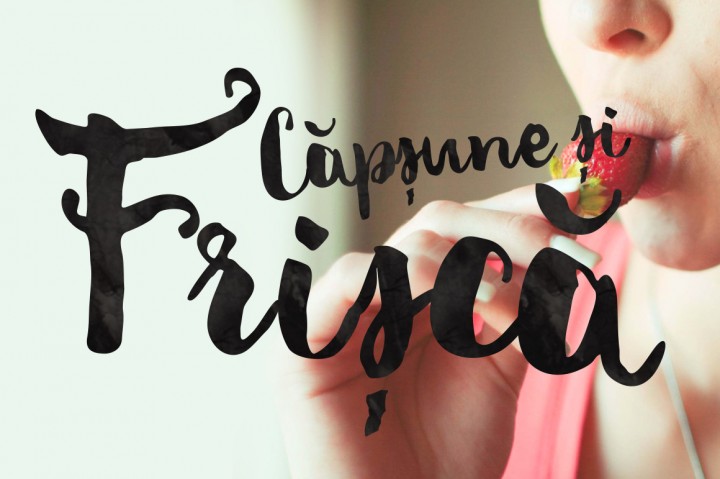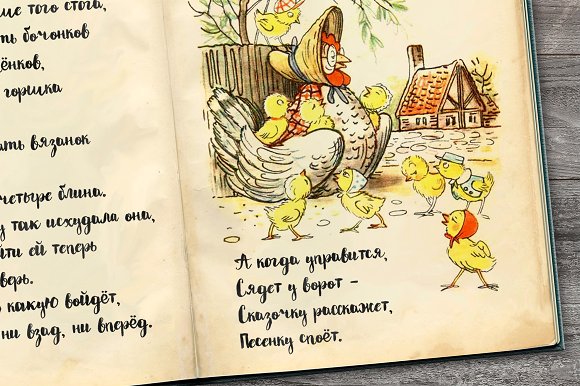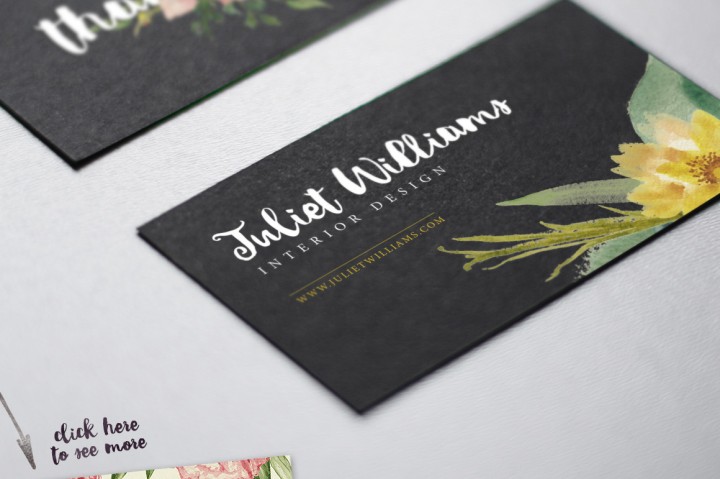
Miletta Font
About Miletta Font
Miletta is a hand painted font created by Blessed Print.
This handwritten font is created with a brush and ink. After the paint dried it was digitized with a scanner and optimized until perfection. It’s packed with ligatures and alternates and has 407 unique glyphs.